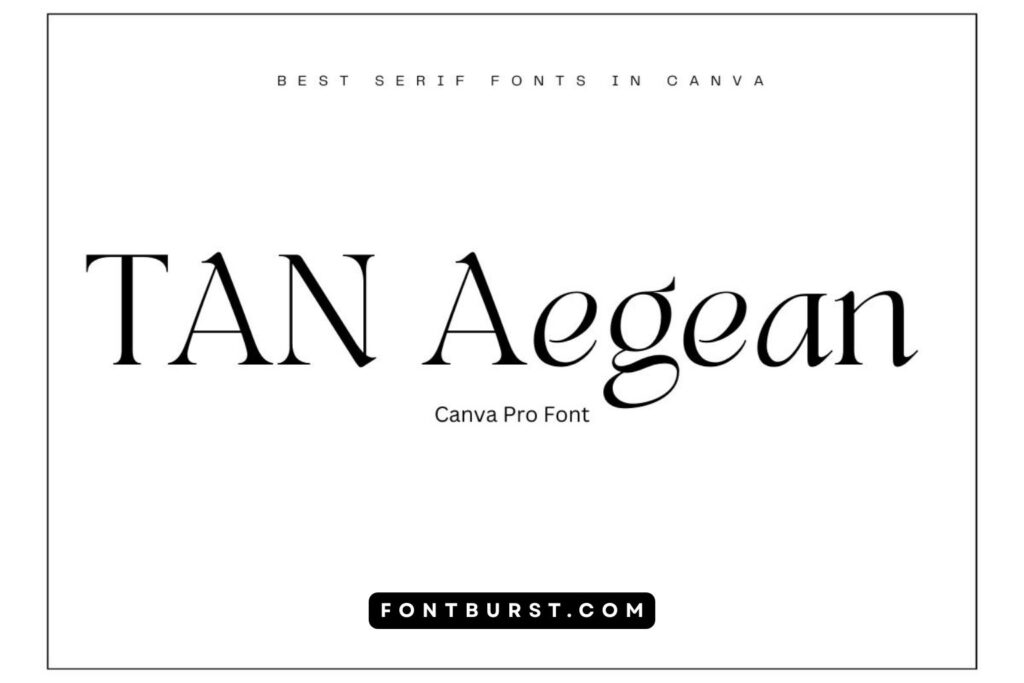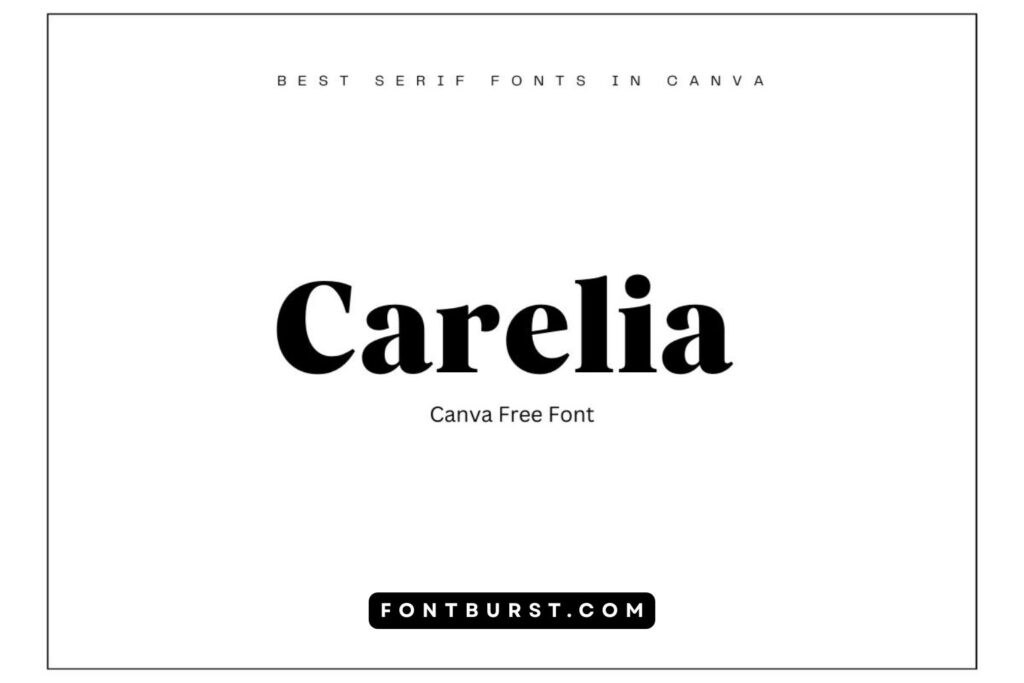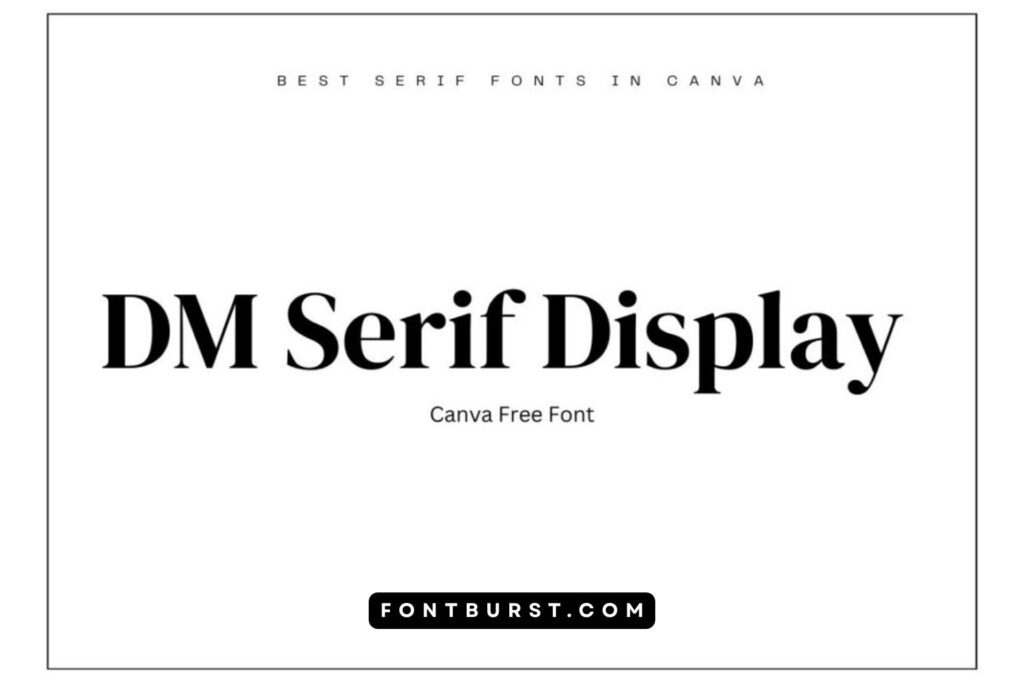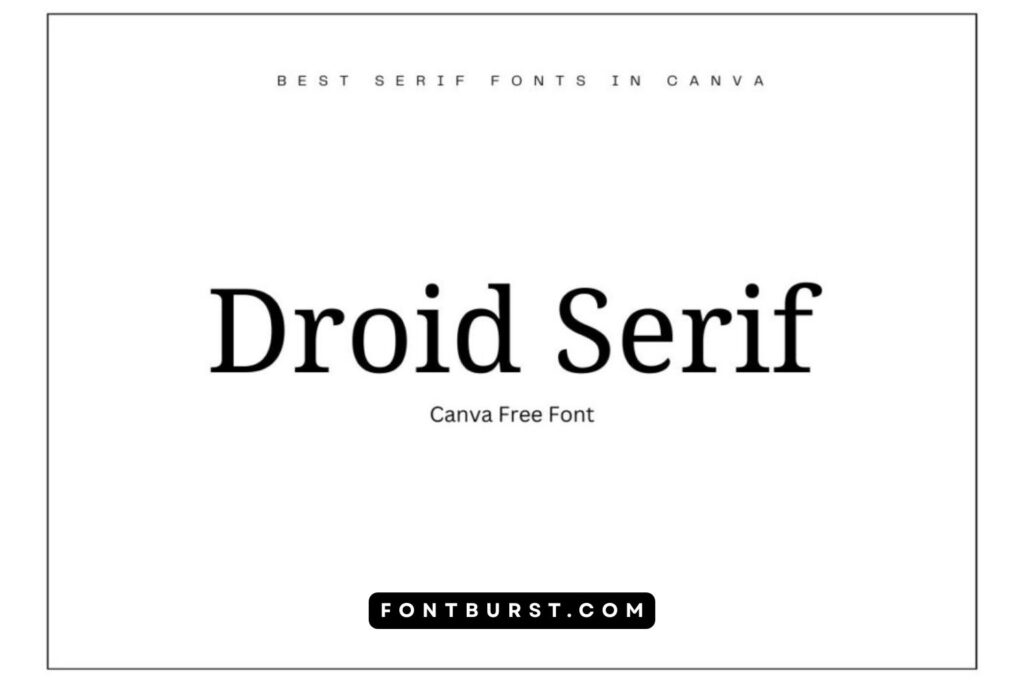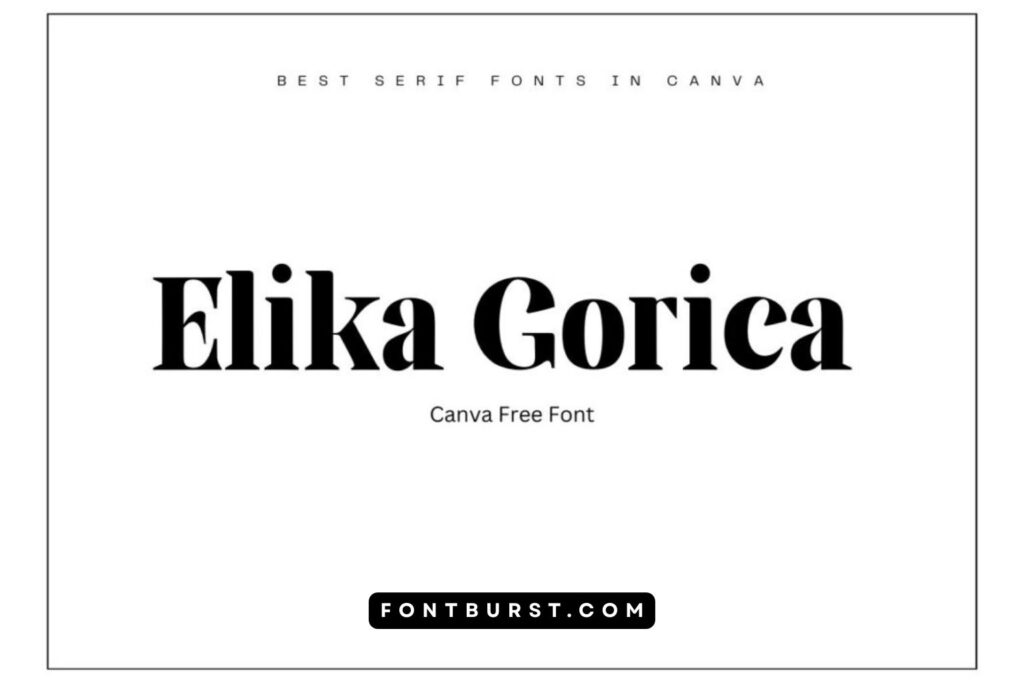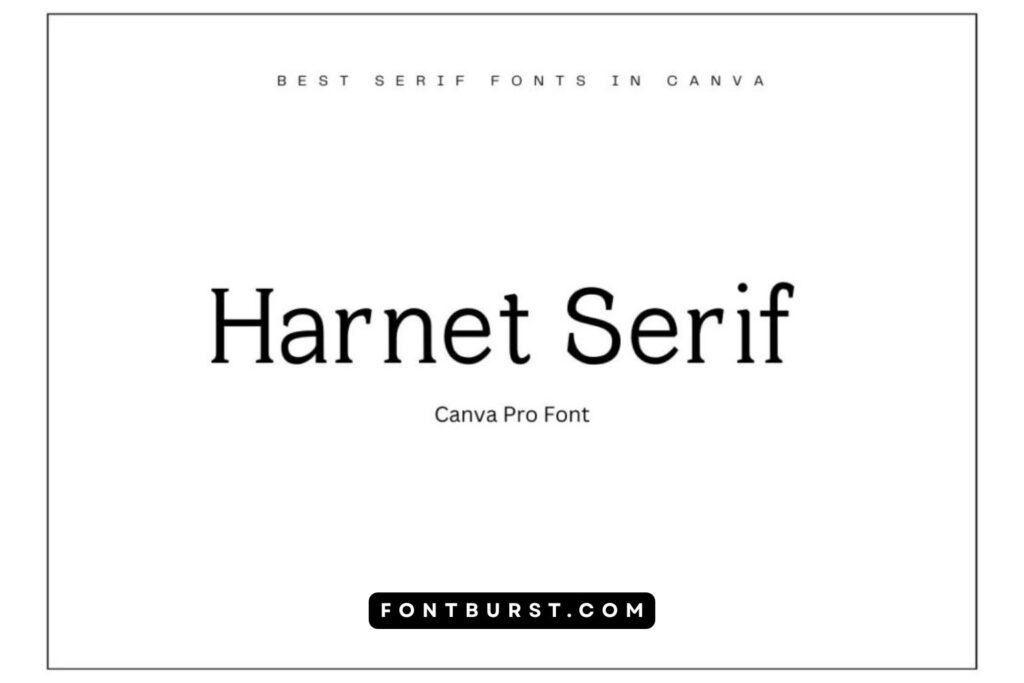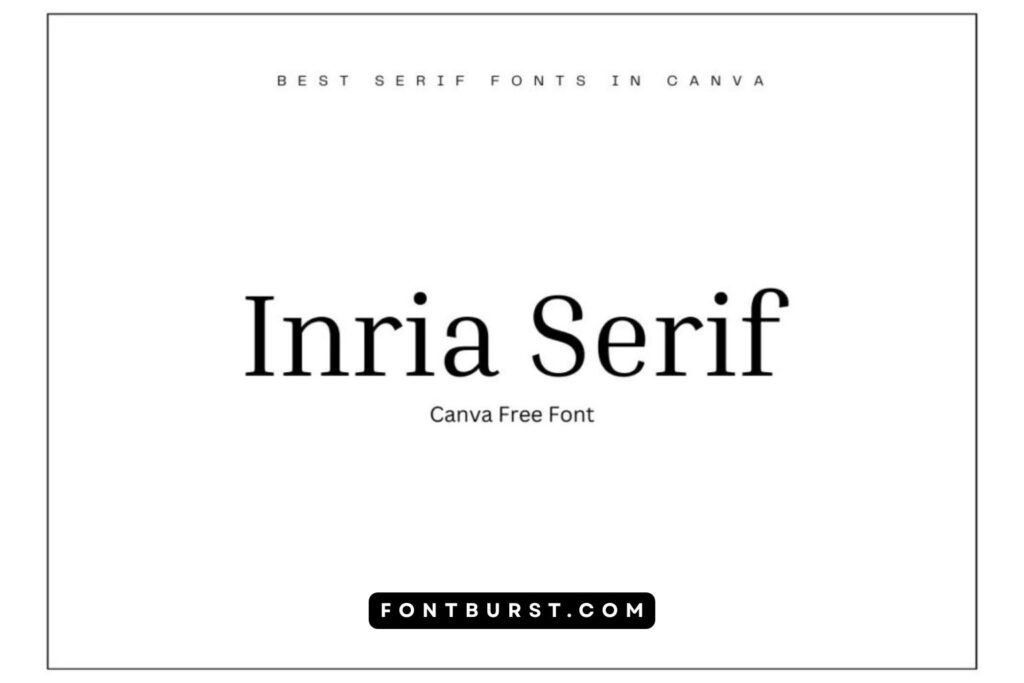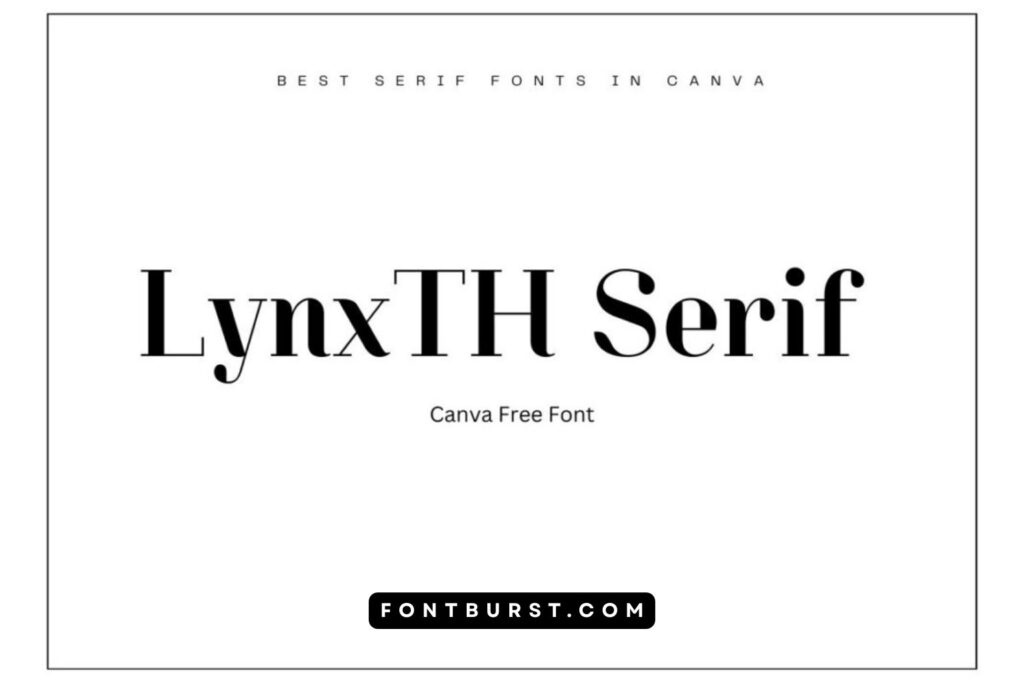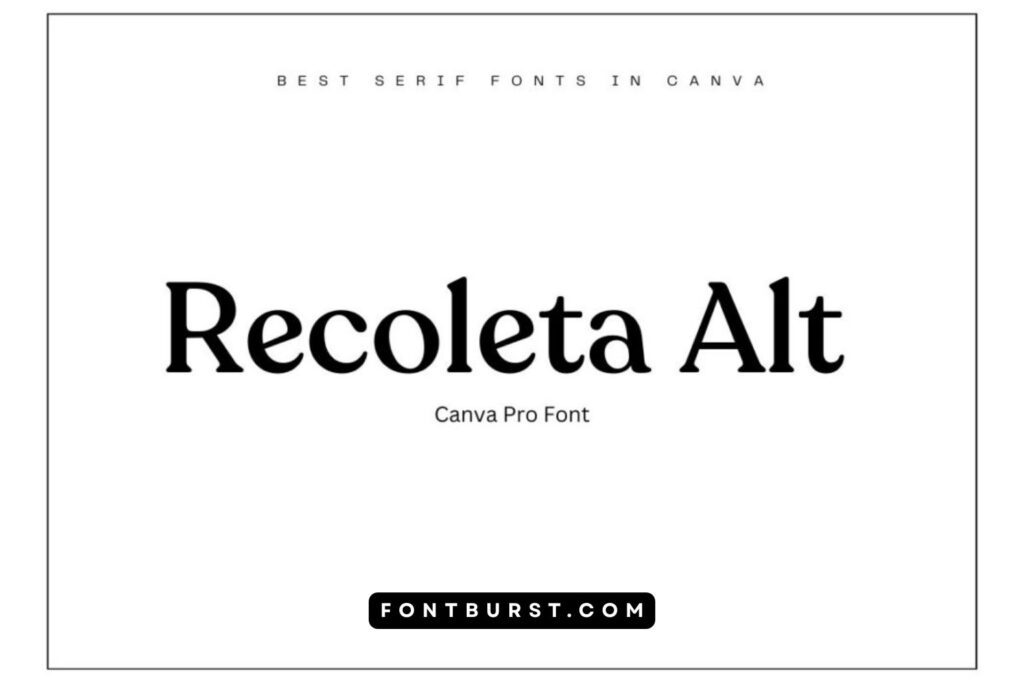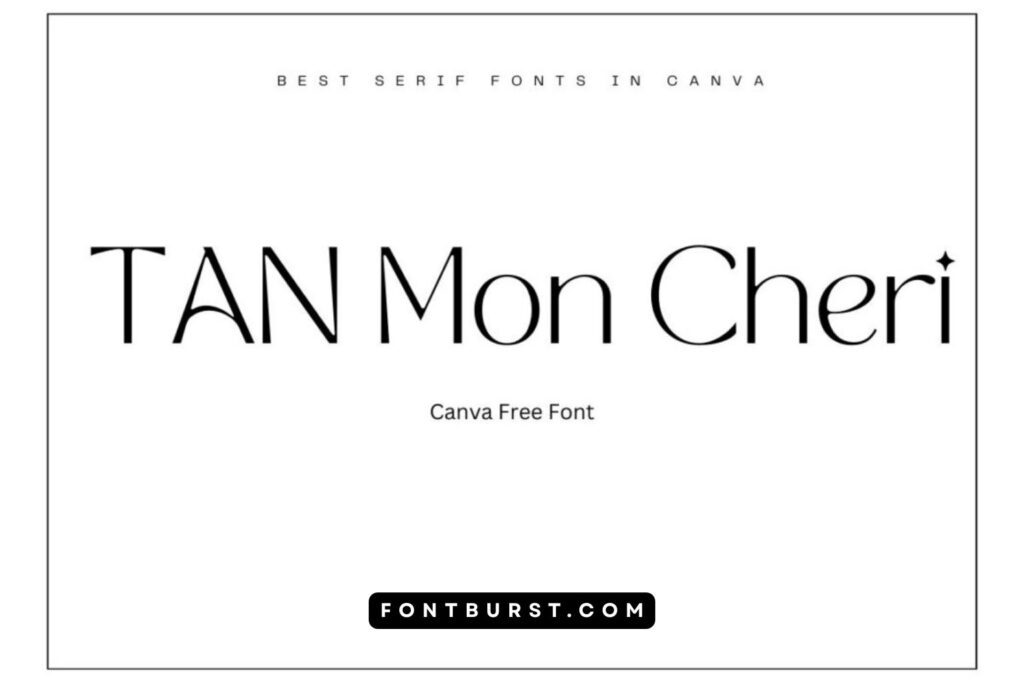
15 Best Serif Fonts in Canva
Are you on the hunt for the perfect serif font for your next project but feeling overwhelmed by the choices? Whether you’re crafting a formal invitation, setting up the layout for a blog, or designing a logo, picking the right font can really set the tone for your work. In today’s post, I’m going to simplify your search by jumping into the world of best serif fonts in Canva.
Why Serif Fonts?
Serif fonts are the traditionalists of the font family, known for their decorative feet at the end of each letter stroke. They’re not just about style; these small details make text easier to read and add a certain elegance or formality to your design. But with so many options, how do you choose the right one?
Picking the Best Serif Fonts in Canva
The key to picking the right serif font lies in understanding your project’s needs. Are you going for a classic look or something more modern? Is readability your top priority, or are you looking to make a bold statement? Keep these questions in mind as we explore some top choices.
Now, let’s jump into the world of serif fonts available on Canva, highlighting both free and paid options. From the traditional elegance of classic designs to the unique flair of modern interpretations, there’s something here for every project.
Faraz Modern Serif Font
Picture this: a font that’s as smooth as a modern skyscraper but as readable as your favorite book. Faraz Modern is exactly that. It’s the kind of font that looks amazing in a tech startup’s logo or as the headline on a cutting-edge website. It’s not just another serif font; it’s like the cool, city-dwelling cousin who wears sleek suits but is also down-to-earth.
TAN Aegean Font
Imagine the sun setting over the Mediterranean, ancient ruins in the backdrop, and that’s where you’ll find the spirit of TAN Aegean. This font brings a touch of history to any project, perfect for a travel blog or a historical novel cover. It’s like stepping back in time but with a modern twist.
Carelia Font
Carelia is the warm hug of fonts. It’s soft, inviting, and perfect for when you want your message to feel personal and comforting. Imagine using Carelia on a cozy cafe menu or in a heartfelt letter. It’s the kind of font that makes you feel like you’re coming home.
DM Serif Display Font
DM Serif Display is all about making a statement. Think of the headlines on a major news website or the title of a blockbuster movie poster. This font is bold and demands attention, perfect for when you really want your words to stand out.
Droid Serif Font
Here’s your new go-to for anything and everything. Droid Serif is like the reliable friend who’s always there when you need them. It’s incredibly readable, which makes it perfect for longer blog posts, ebooks, or any project where you want your audience to hang on to every word.
Elika Gorica Font
Imagine a font that’s as elegant as a high-end fashion magazine but as unique as a hidden gem boutique. Elika Gorica brings that high-end sophistication to anything from luxury brand logos to exclusive event invitations. It’s refined, stylish, and definitely not your average serif.
Harnet Serif Font
Bold, brave, and daring, Harnet Serif is not here to blend in. It’s the font you choose when you want to make a bold statement, like on a promotional poster or a social media campaign that needs to catch the eye.
Inria Serif Font
Here’s a font that bridges the old with the new. Inria Serif feels classic enough for traditional projects but modern enough for today’s designs. It’s perfect for blending the best of both worlds, whether it’s in a corporate report or on a creative website.
LynxTH Serif Font
LynxTH Serif is not just a font; it’s a personality. It’s perfect for brands or projects that want to stand out, be a bit quirky, and show off their unique style. Think of indie music album covers or art gallery flyers.
Quando Font
Friendly, approachable, and a little bit quirky – that’s Quando for you. This font is perfect for casual blogs, children’s books, or any project that aims to be accessible and fun. It’s like the friendly neighbor who always says hi.
Recoleta Alt Font
Combining the retro charm of the ’70s with the clarity of modern design, Recoleta Alt is like a chameleon. It fits perfectly in a variety of settings, from nostalgic branding projects to contemporary advertisements.
TAN Mon Cheri Font
Picture a love letter written in the soft light of dawn, and you’ll capture the essence of TAN Mon Cheri. This font is all about romance and whimsy, ideal for wedding invitations, poetry books, or any project that’s meant to tug at the heartstrings.
Source Serif Pro Font
Here’s your academic powerhouse. Source Serif Pro is what you want for any scholarly article, serious blog, or professional presentation. It’s the font that says, “I know what I’m talking about, and you can trust me.”